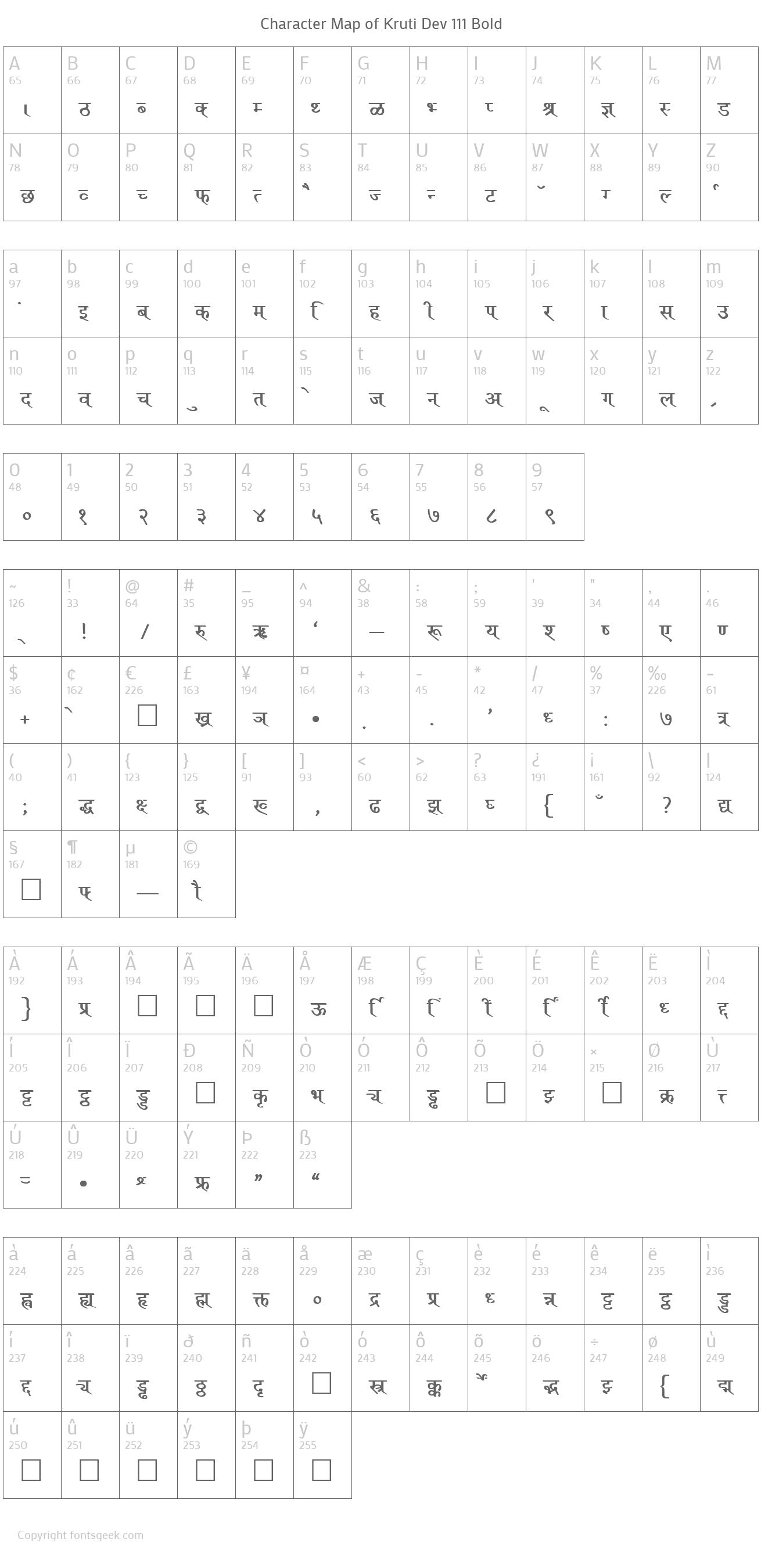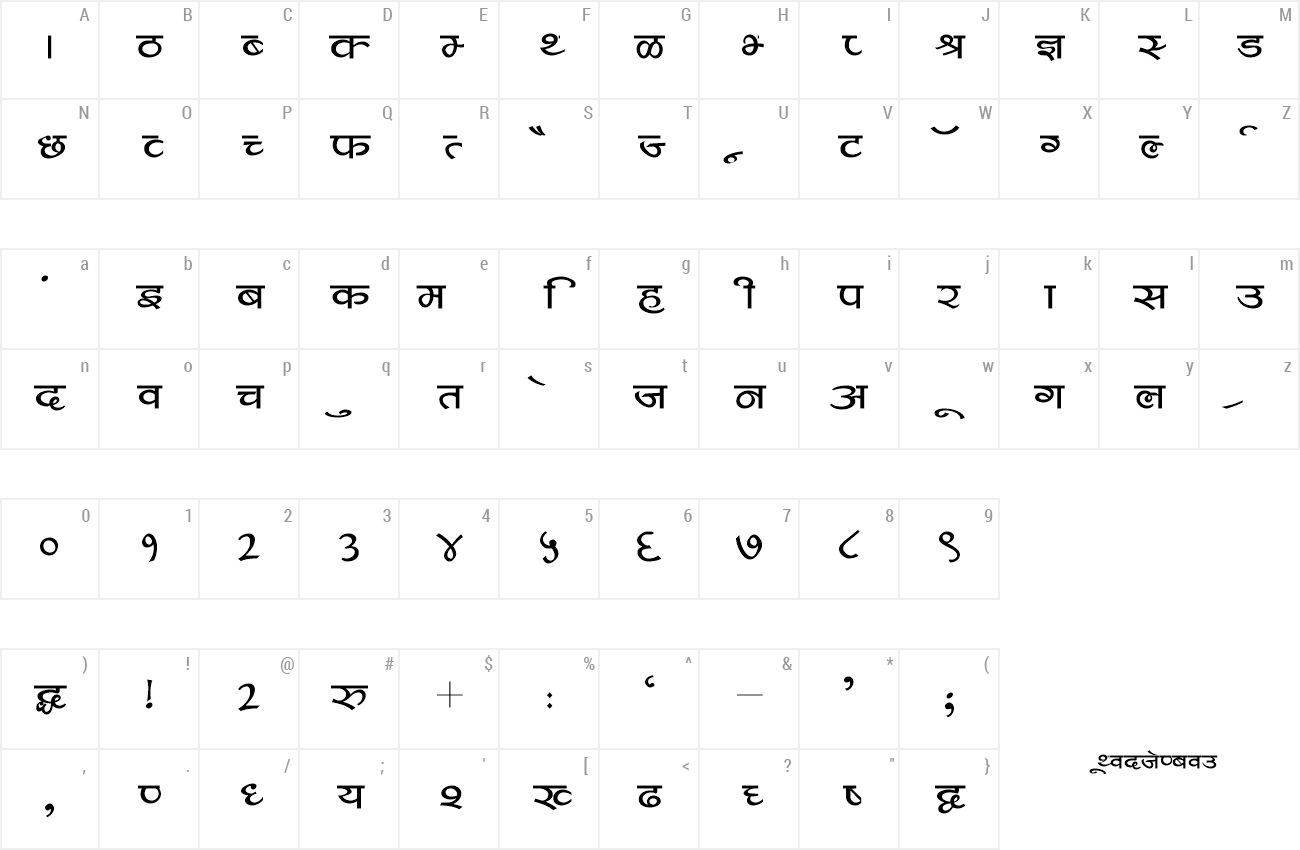
Kruti dev 050 regular hindi font comes from the kruti dev family which is the most preferred hindi font in office of state government. Furthermore, if you want to. These fonts uses english characters to produce hindi script.
Kruti Dev 010 Regular Is A Regular Truetype Font.
State Use It As Official Font For Hindi Typing.